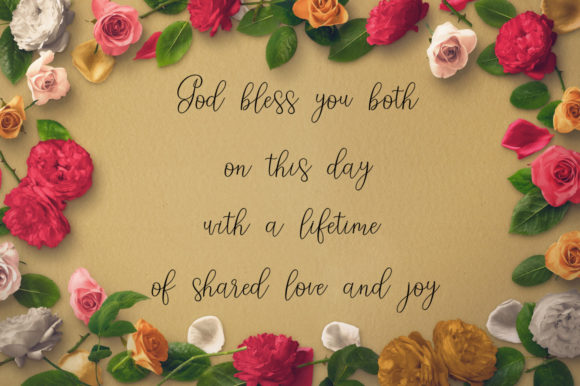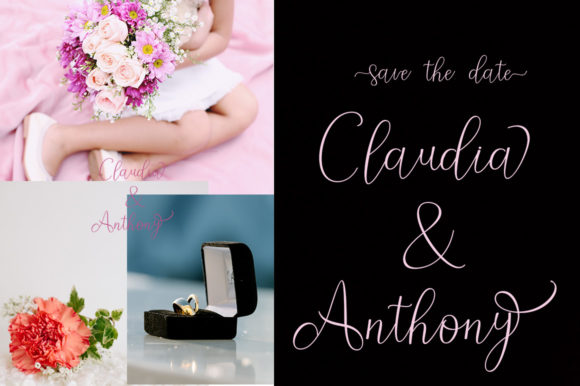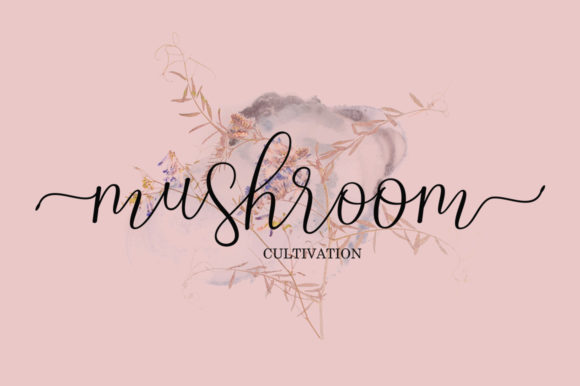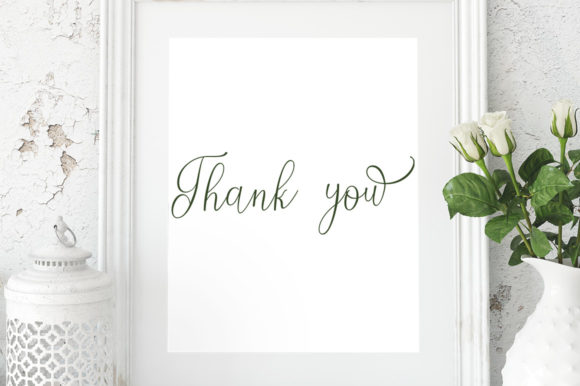
Introduction to Nathasyia Script Font
Do you remember the thrill of creating your first design project, pouring your heart and soul into every detail, and finally seeing it come to life? For many designers, it’s a moment that sparks a lifelong passion for creative expression. And when it comes to choosing the perfect font, every decision matters. That’s why we’re excited to introduce you to the Nathasyia Script Font, a stunning addition to any design project.
With its sweet, modern script style and dynamic dancing baseline, the Nathasyia Script Font is the perfect choice for logos, branding, greeting cards, quotes, and wedding stationery. Its high-quality design makes it a valuable resource for designers, offering a level of sophistication and elegance that’s hard to find elsewhere. Whether you’re working on a free download project or a high-end commercial design, the Nathasyia Script Font is sure to impress.
Key Features of Nathasyia Script Font
- High-quality, elegant script font suitable for various design projects, including wedding invitations, quotes, and creative typography.
- Features a transparent background, making it easy to customize and combine with other design elements.
- Designed with precision and attention to detail, resulting in a high-resolution font with clear and legible characters.
Honest Review: Nathasyia Script Font
I recently stumbled upon the Nathasyia Script Font, and I must say it’s been a game-changer for my design projects. As a designer, I’m always on the lookout for high-quality design resources that can help me take my creative projects to the next level. The Nathasyia Script Font is definitely one of them.
- ✨ The font is incredibly versatile, with a beautiful, elegant script that can be used for a wide range of design projects, from wedding invitations to branding materials.
- ✨ The font is highly customizable, with a transparent background that makes it easy to overlay on top of images and other design elements.
- ⚠️ The font may not be suitable for projects that require a more modern or edgy look, as it has a more classic, elegant feel.
- ⚠️ The font may not be as comprehensive as some other script fonts, with fewer variations and styles to choose from.
Overall, I’m really impressed with the Nathasyia Script Font. It’s a high-quality design resource that’s perfect for designers who are looking for a beautiful, elegant script to add to their projects. Whether you’re working on a free design project or a paid client project, this font is definitely worth checking out.
Nathasyia Script Font
The Nathasyia Script Font is a high-quality design resource perfect for any creative project that requires a touch of elegance. With a transparent background and smooth curves, this font is ideal for adding a professional touch to your designs.
Tips for Getting the Most Out of Nathasyia Script Font
To get the most out of the Nathasyia Script Font, use it in combination with other high-quality design resources. Experiment with different font sizes and styles to create visually appealing designs. Also, use the font’s transparent background to create a seamless design that integrates well with your background images.
Common Use Cases for Nathasyia Script Font